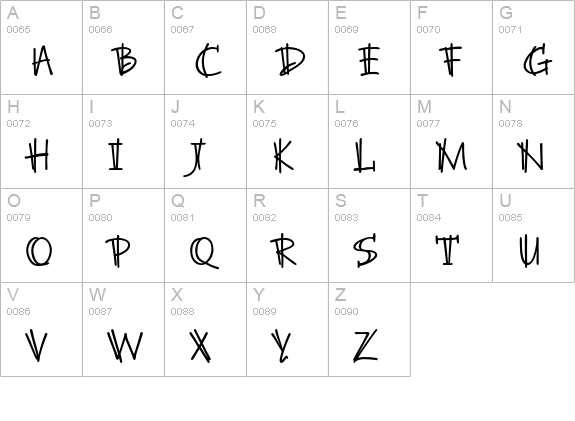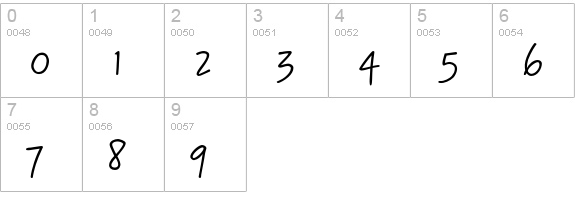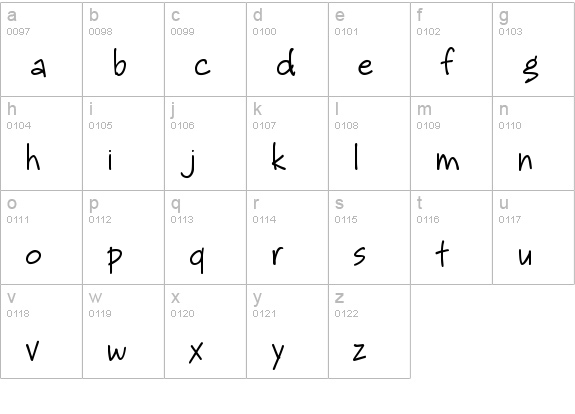
Bruno JB Font Details
Introducing Bruno JB font, a versatile and modern typeface that combines elegance with a touch of playfulness. This font features clean lines and a sleek design, making it perfect for a wide range of design projects. Whether you're creating a logo, branding material, or website, Bruno JB font is sure to make your text stand out. What's even better is that Bruno JB font is available for free download at FontsMarket.com. This means that you can easily access this stylish font and use it in your projects without any cost. With its unique style and professional quality, Bruno JB font is a must-have for any designer looking to add a contemporary flair to their creations. Download it today and see the difference it can make in your designs!